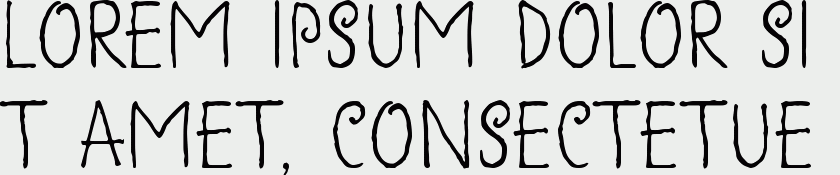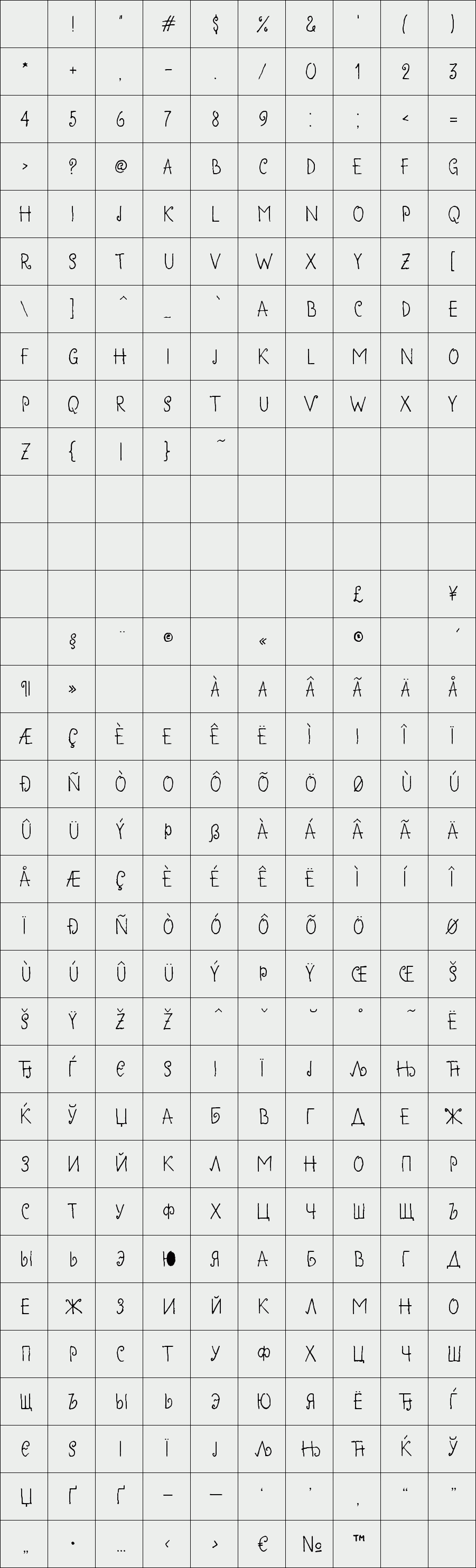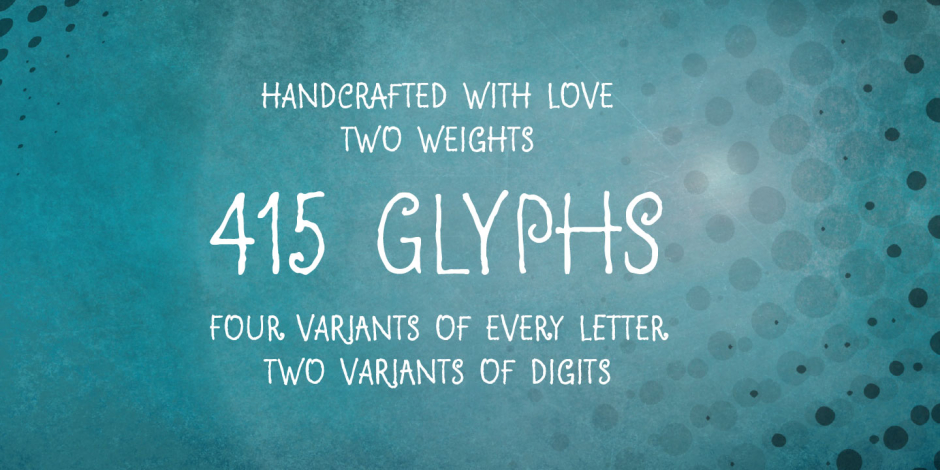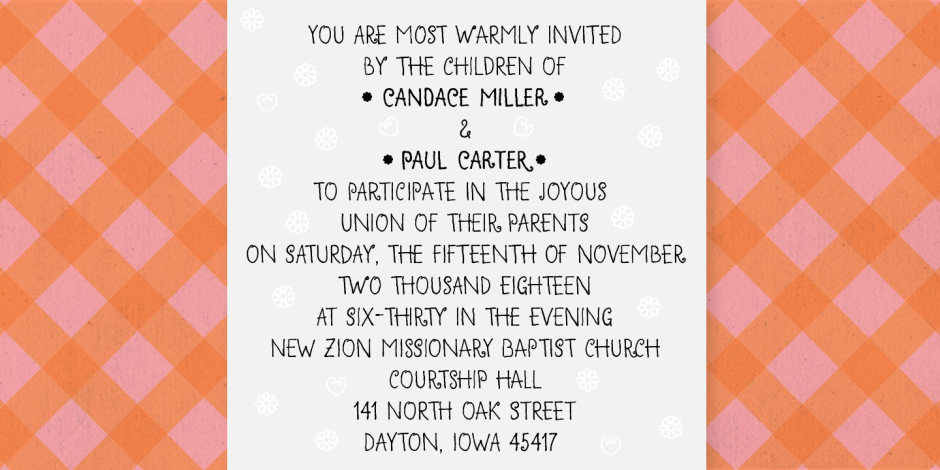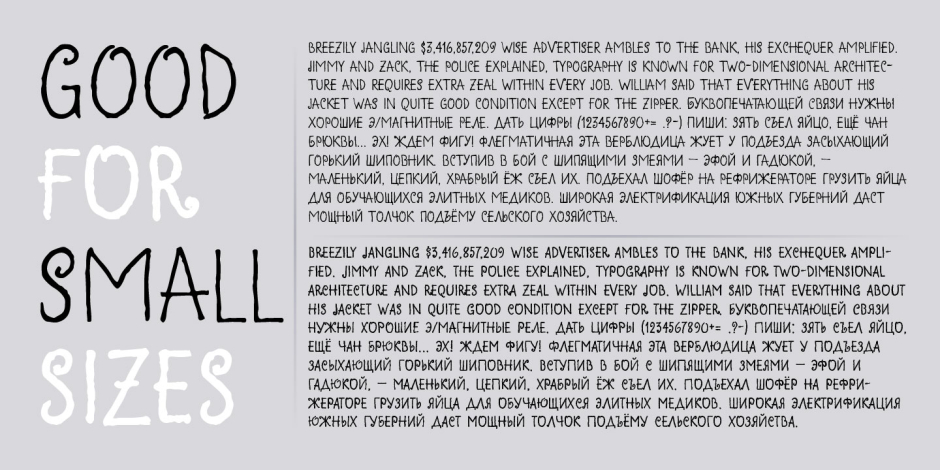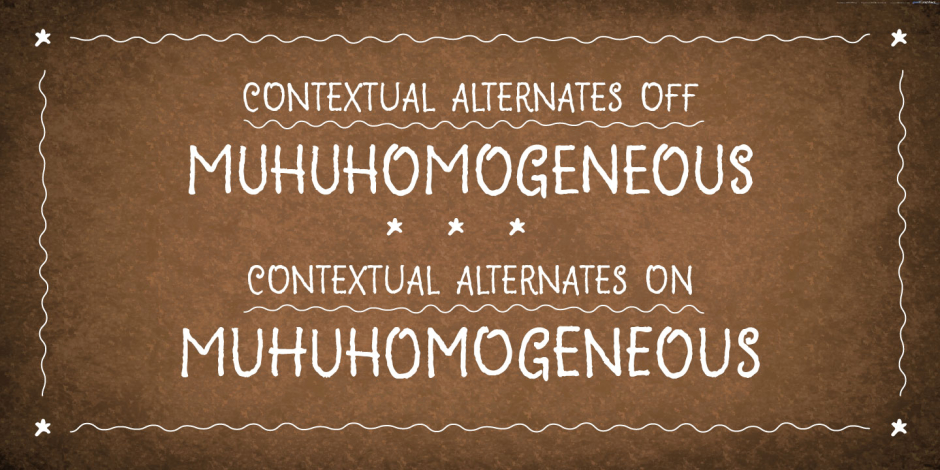
Clumsy
Clumsy is a two weight all caps handcrafted awkward font with alternates for all characters and digits.
The font was inspired by a few lines of text from an old soviet book about vine. Clumsy is a good choice for small amounts of text.
When Clumsy is used in OpenType applications, its Contextual Alternates feature produce a striking random-like effect on glyphs distribution, achieved by cycling through alternates. When not using the Contextual Alternates feature, you can still pick the alternates in the Glyphs palette or use the alternates available from the keyboard upper and lower case.